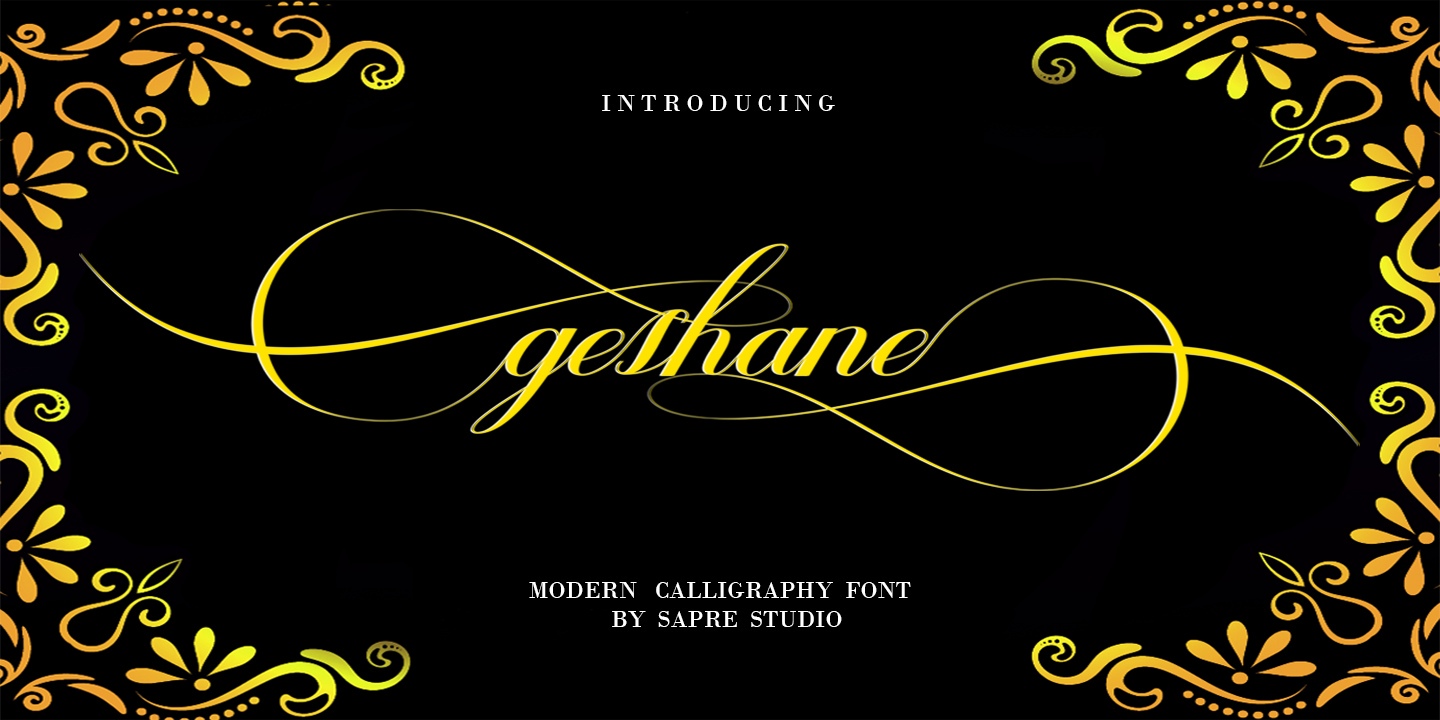
Geshane Script Font
Geshane Script Font is ideal for traditional Persian restaurants, Middle Eastern cultural centers, Islamic manuscript reproductions, Persian poetry publications, Iranian heritage exhibitions, traditional calligraphy workshops, authentic Persian boutique branding, Middle Eastern wedding invitations, cultural festival materials, and sophisticated Persian lifestyle brands. This elegant typeface brings Persian heritage and Middle Eastern sophistication to any culturally-inspired design project.
Geshane Script Font is exciting because it embodies the poetic beauty and cultural richness of Persian artistic traditions, featuring flowing script letterforms that evoke the lyrical elegance of Persian poetry and the sophisticated calligraphic artistry that has flourished throughout Iranian cultural history. Its Persian character instantly conveys cultural authenticity, artistic refinement, and the timeless beauty of Middle Eastern literary and artistic traditions.
Geshane Script Font family includes Regular weight with Persian-inspired alternates, cultural swashes, Middle Eastern flourishes, and traditional ornamental elements that enhance the Persian aesthetic, providing heritage designers with authentic tools for creating typography that celebrates Persian culture and honors the sophisticated artistic traditions of Iranian civilization and Middle Eastern heritage.
Persian heritage designers appreciate Geshane Script Font for its exceptional ability to convey cultural elegance and Persian authenticity through beautifully crafted letterforms. The font's poetic character and Middle Eastern details create immediate associations with Persian literature, traditional calligraphy, and the sophisticated cultural traditions that have made Persian civilization renowned for its contributions to poetry, art, and intellectual achievement.
The design inspiration behind Geshane Script Font draws from classical Persian calligraphy, traditional Iranian manuscripts, and the rich artistic heritage of Persian culture that has preserved literary and artistic excellence across centuries, making it particularly effective for cultural institutions, Persian organizations, and Middle Eastern heritage groups that promote Persian cultural understanding. Cultural teams working on Iranian heritage find this font essential.
Whether used for Persian cultural centers, Iranian heritage festivals, or Middle Eastern literary publications, Geshane Script Font delivers the perfect synthesis of Persian elegance and cultural authenticity. Its heritage appeal and Middle Eastern sophistication make it an indispensable choice for organizations that preserve Persian culture, promote Iranian heritage, and celebrate the poetic beauty and artistic excellence of traditional Persian civilization and cultural expression.